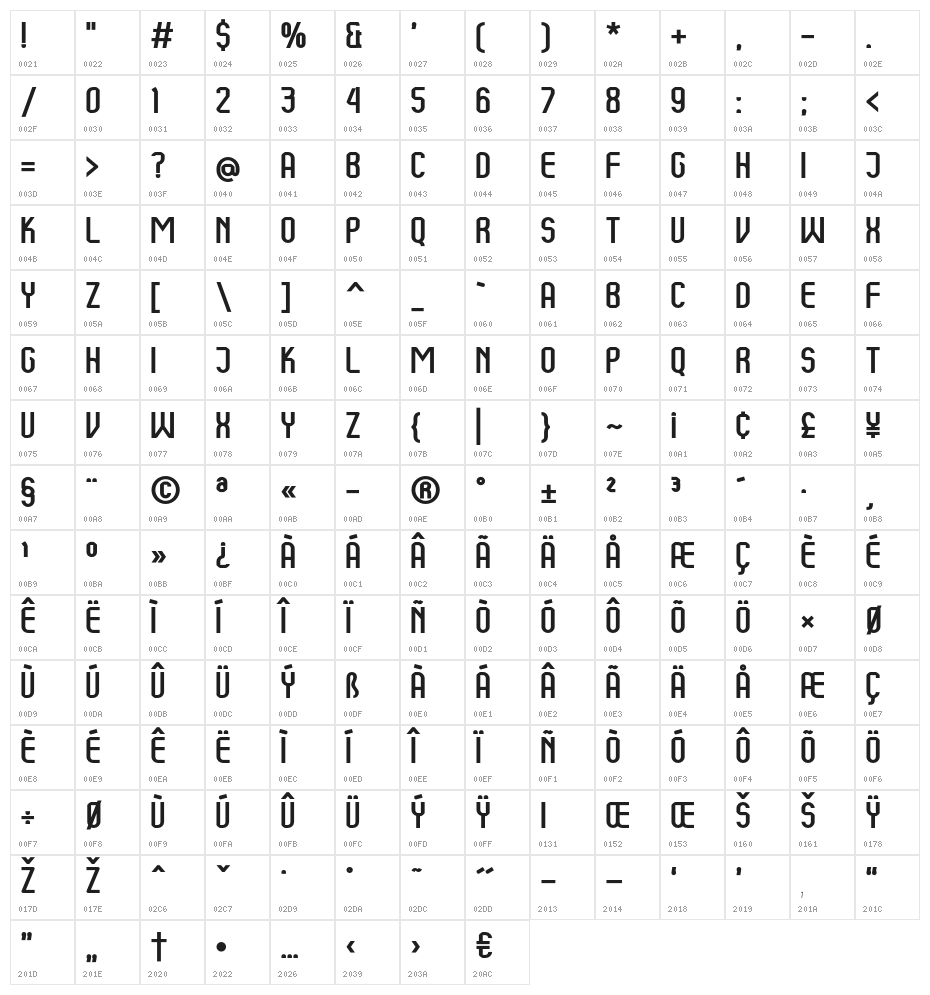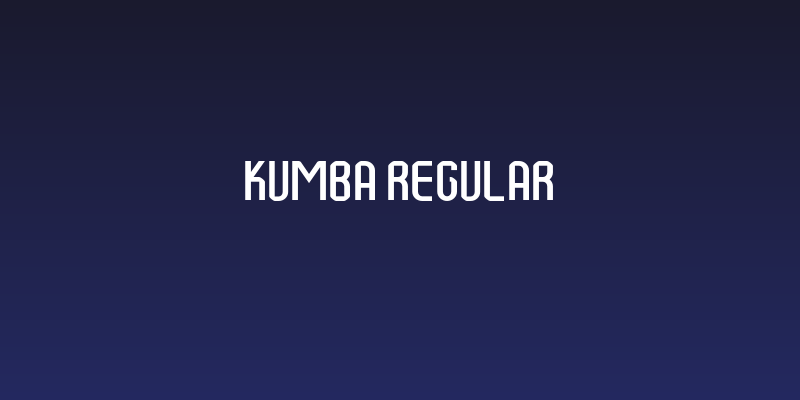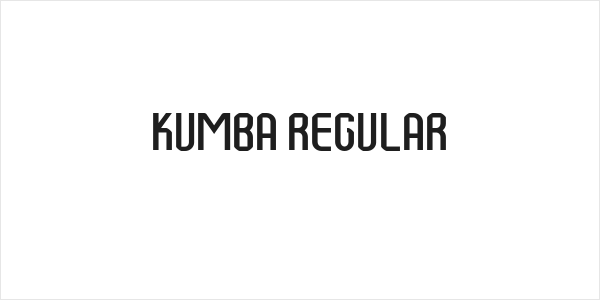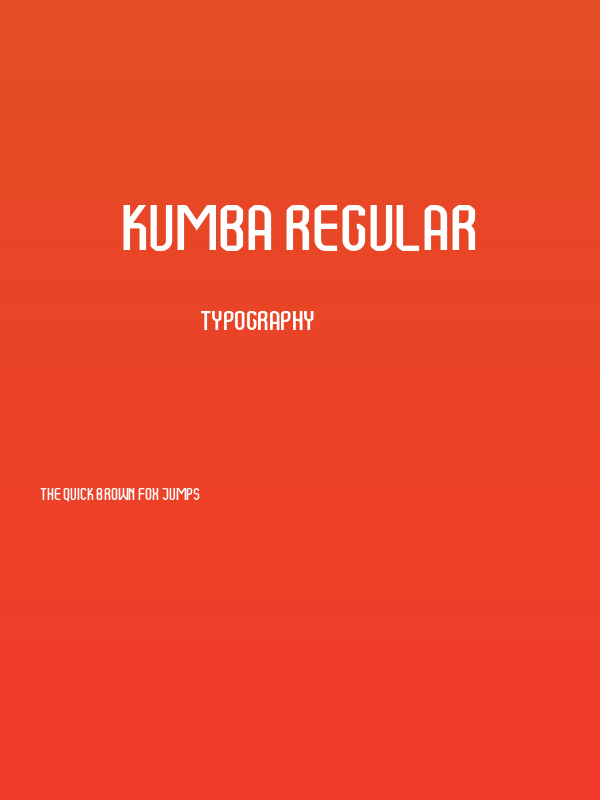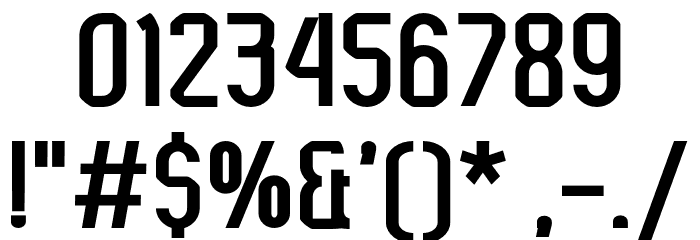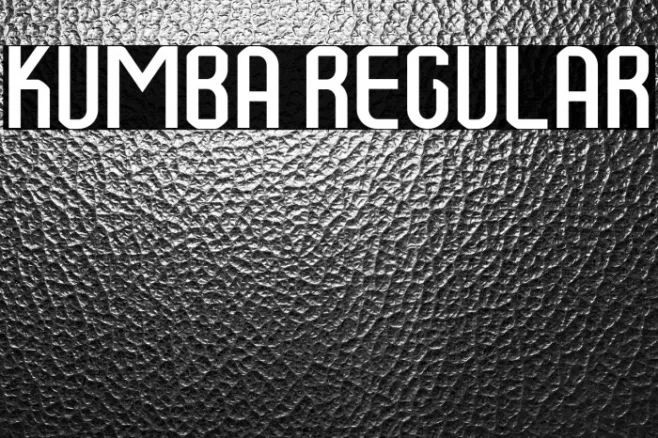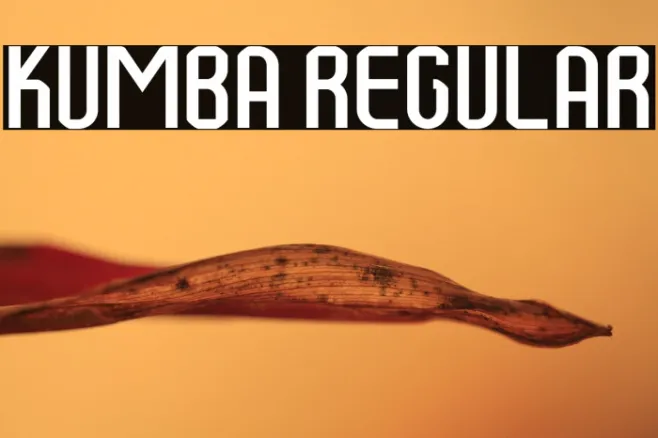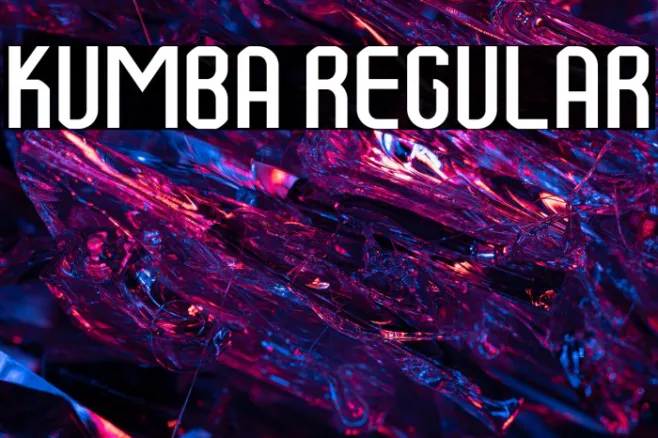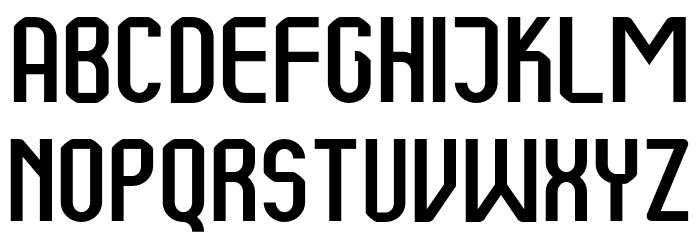
Kumba Regular Font
Kumba Regular Description
This font features a bold and geometric design, characterized by its strong, angular lines and uniform stroke width. The uppercase letters are particularly striking, with a modern and industrial feel that is both eye-catching and functional. The lowercase letters maintain the same geometric style, offering a cohesive look across all text. Numbers and special characters are designed with the same attention to detail, ensuring consistency throughout. The overall appearance is clean and structured, making it suitable for a variety of design applications where clarity and impact are desired.
| Proposed Projects | Ideal for branding, posters, headlines, and any project requiring a strong visual impact. |